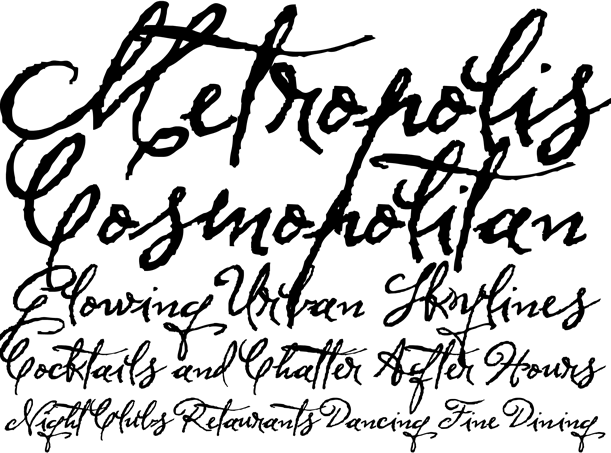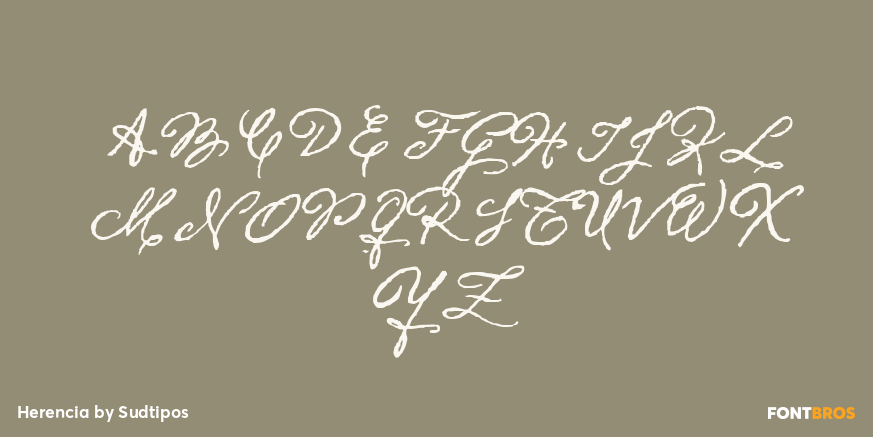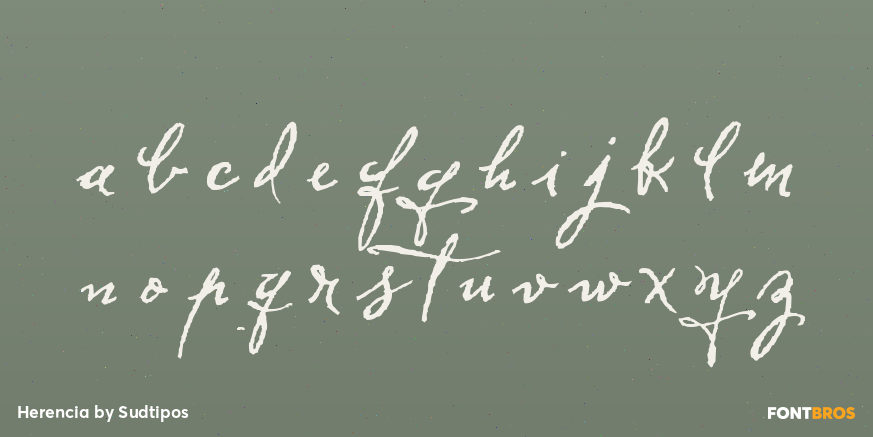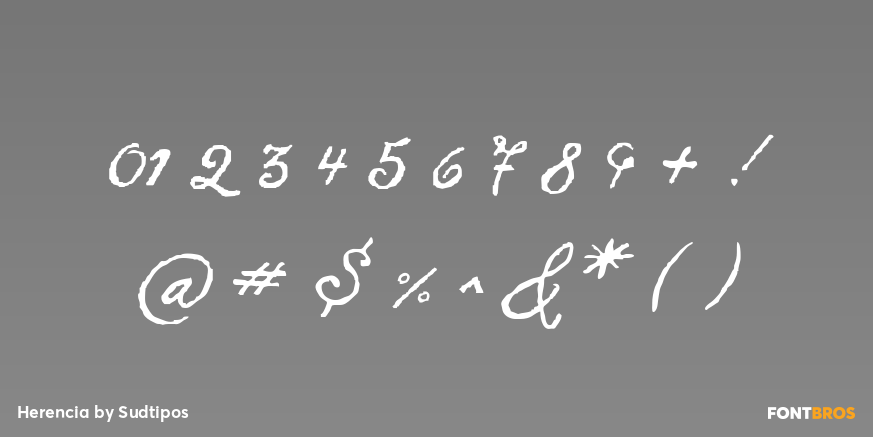
Herencia
Font Family by Sudtipos
Herencia is a script font designed by Diego Giaccone and digitized by Alejandro Paul. A beautiful and sophisticated rough calligraphy for packaging, cards, etc.